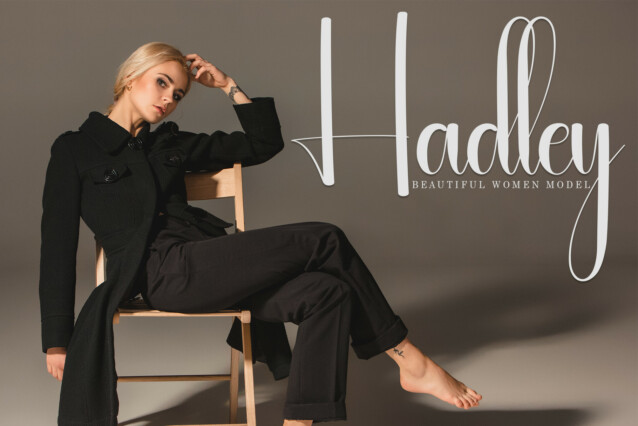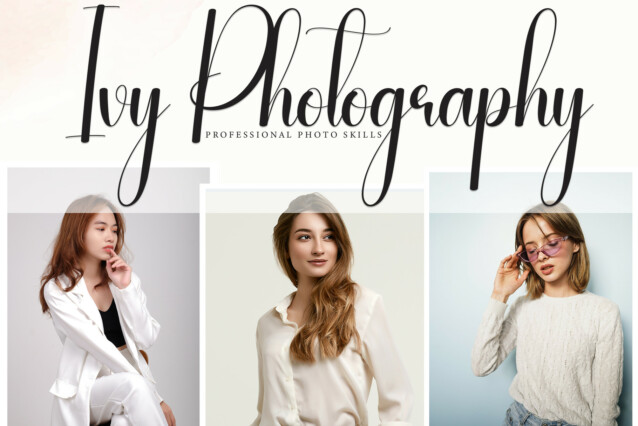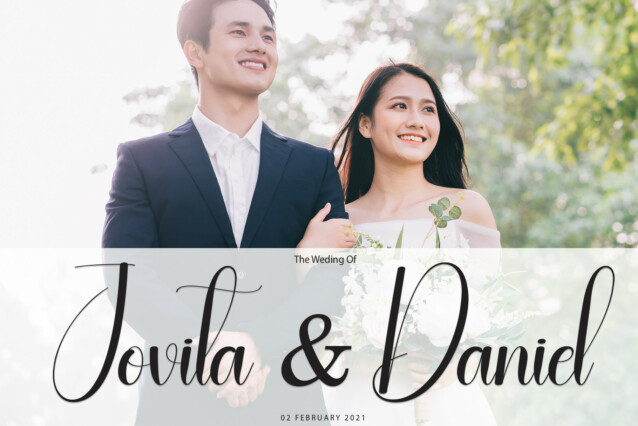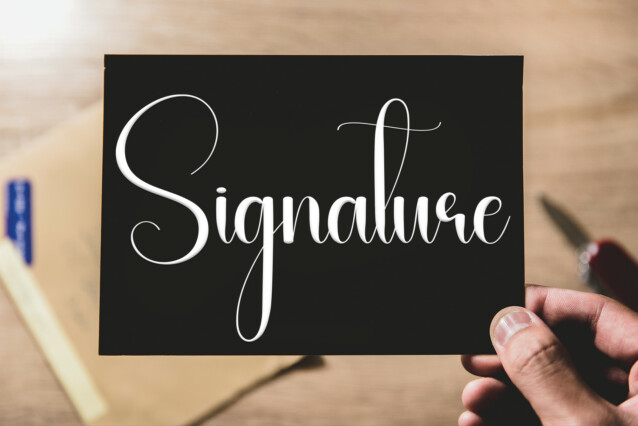
Mountainous Script Font is a sweet and friendly handwritten display font. Cute and fun, this font is ideal for writing wedding invitations, cards, or any other design that might need a playful touch!